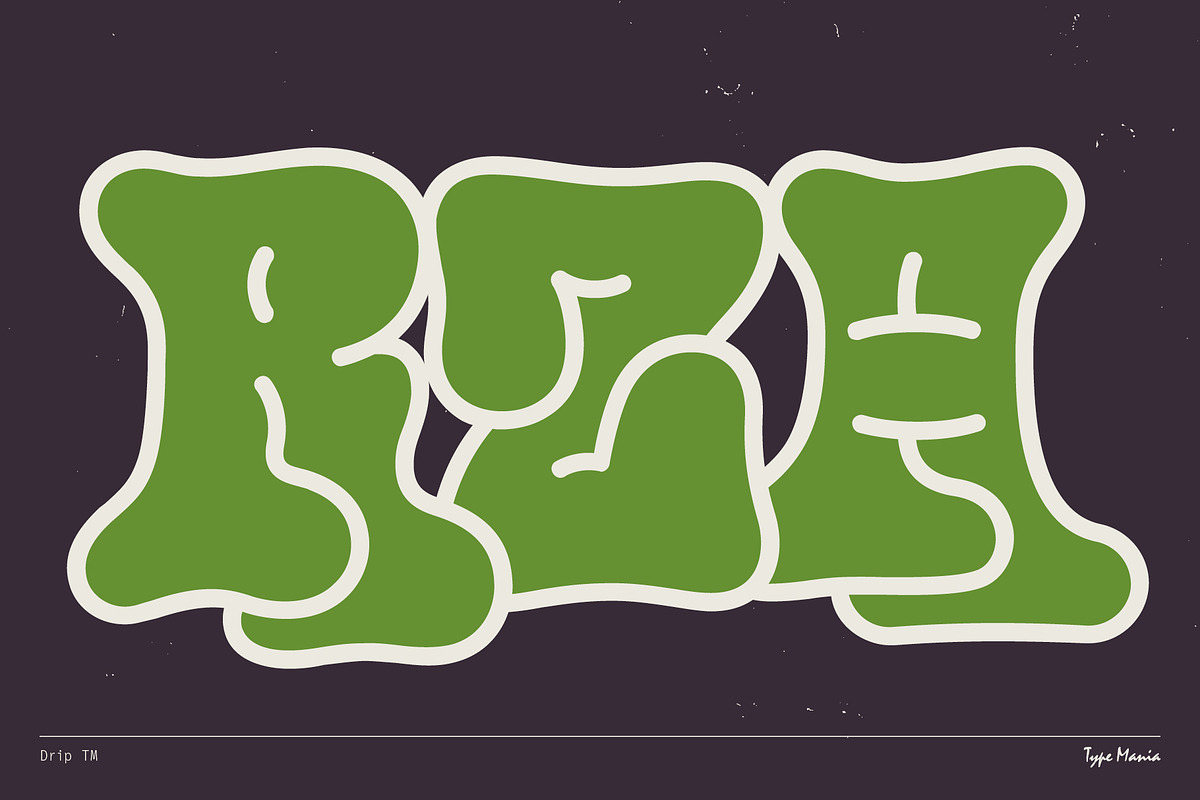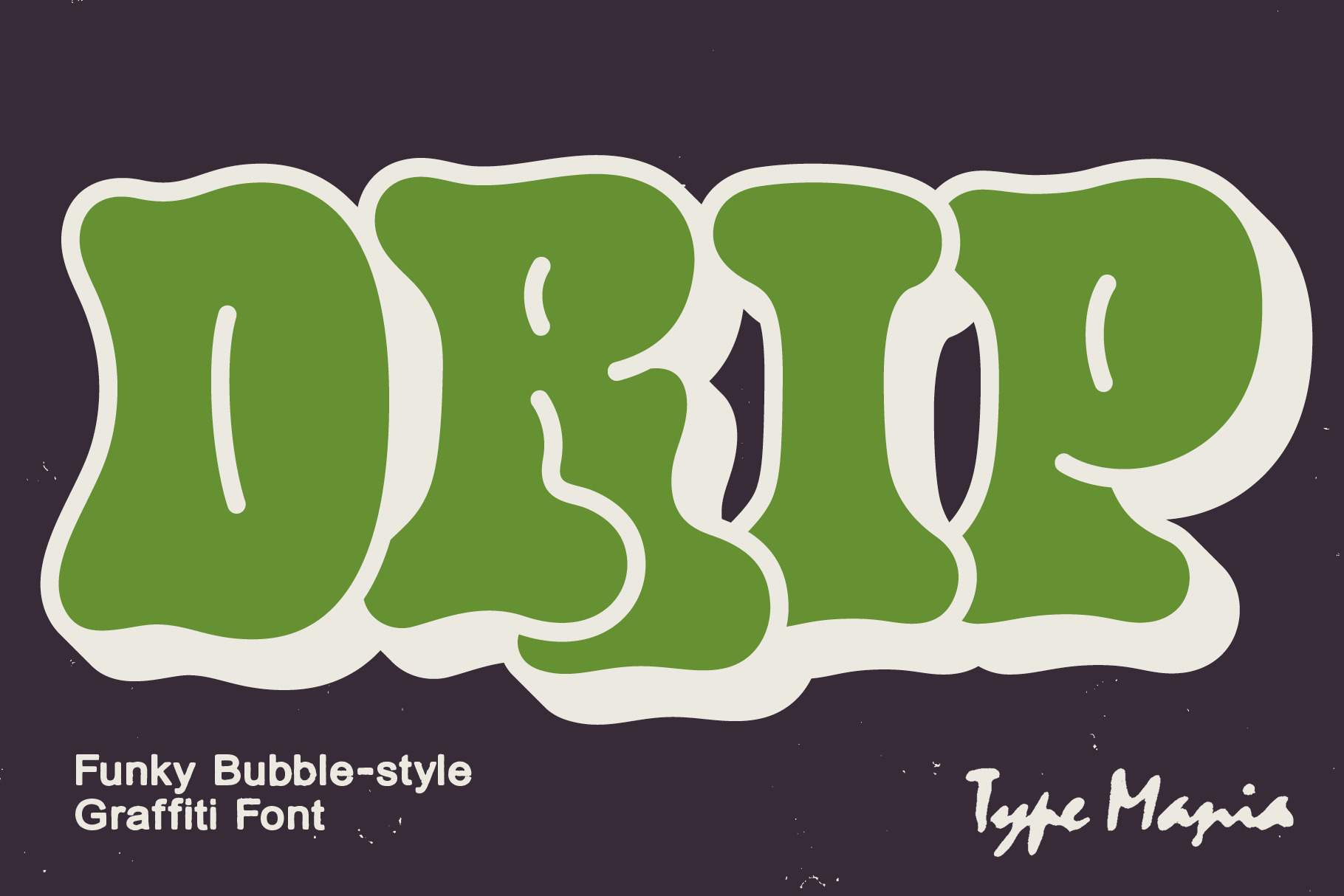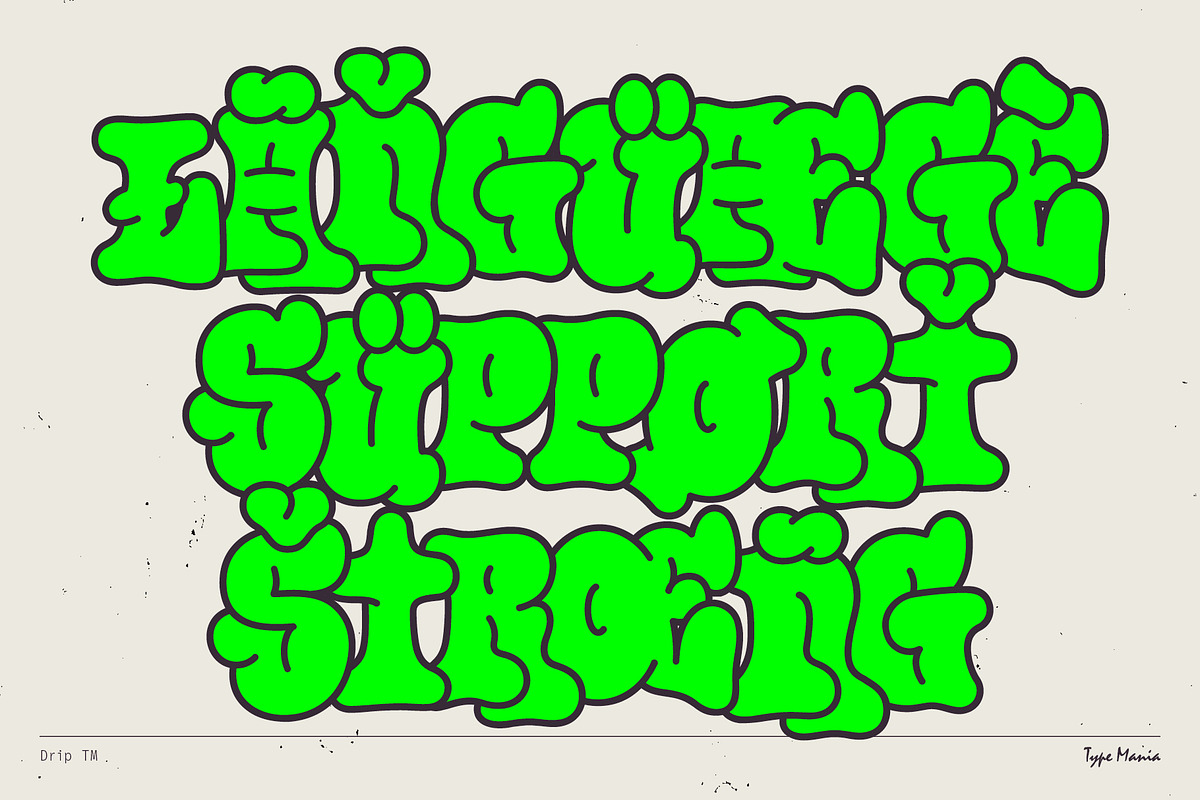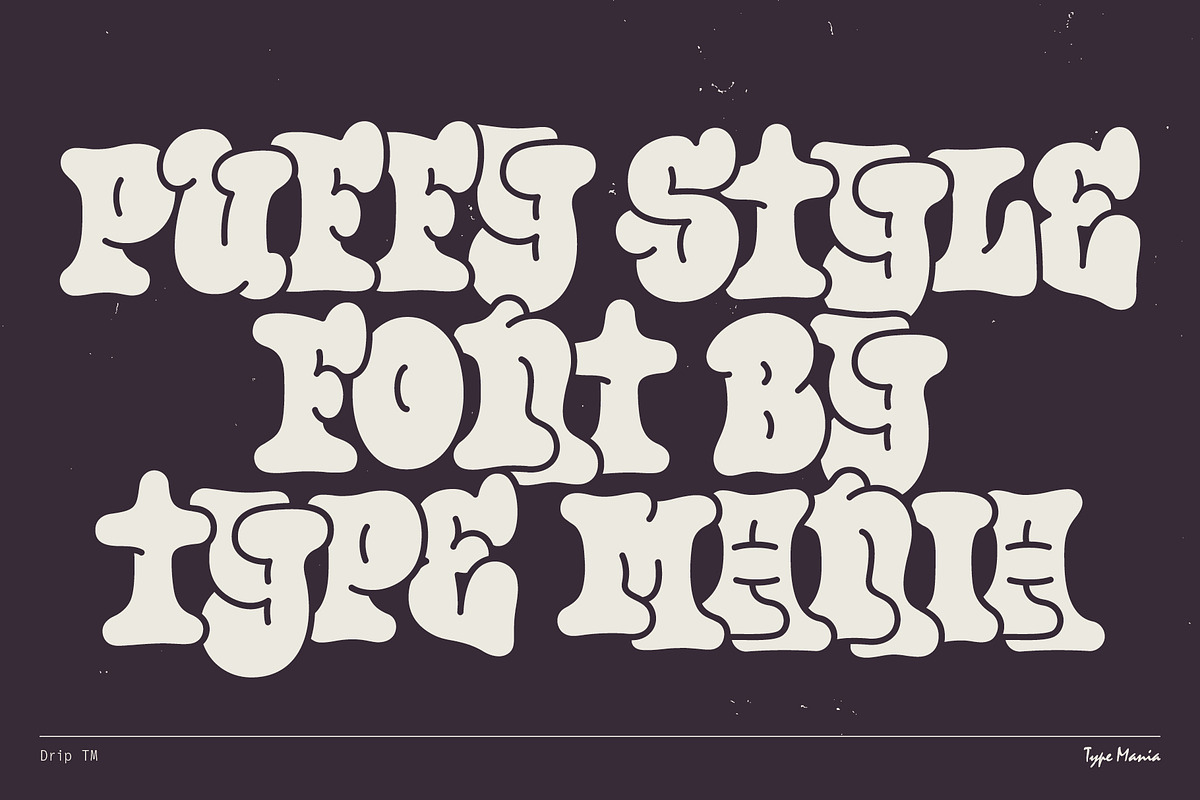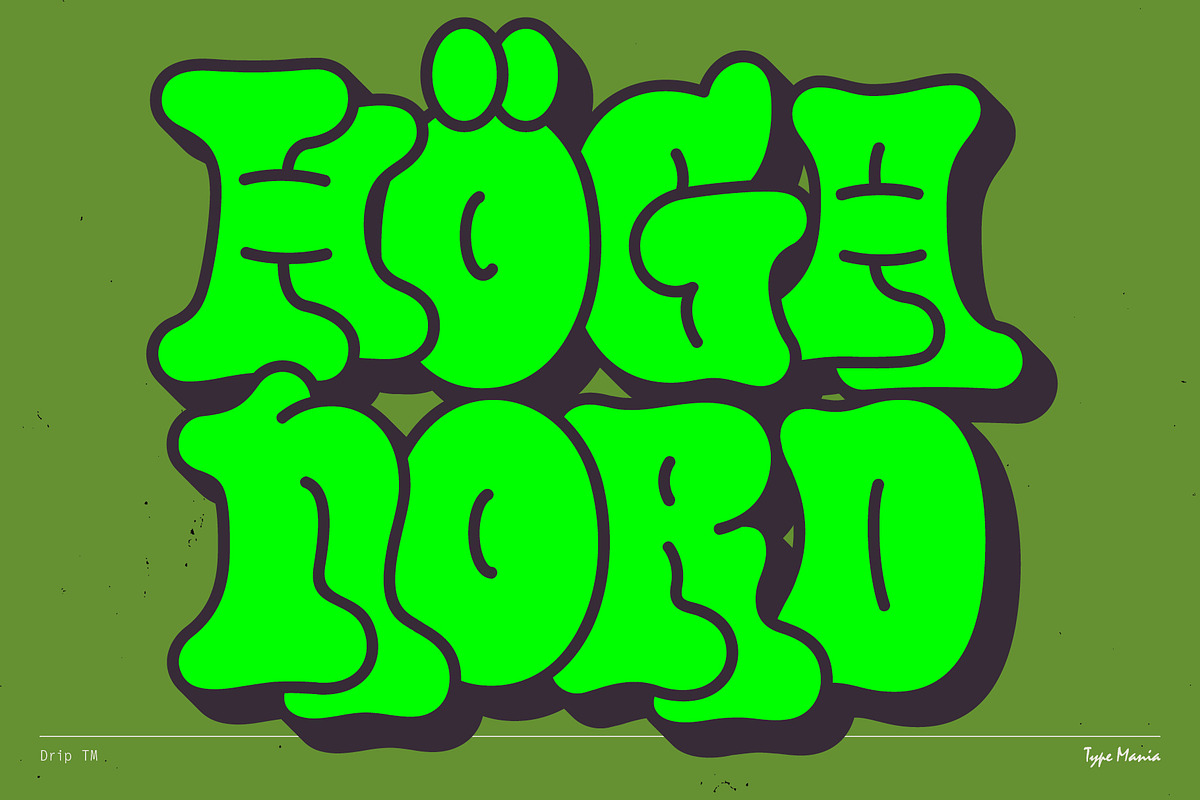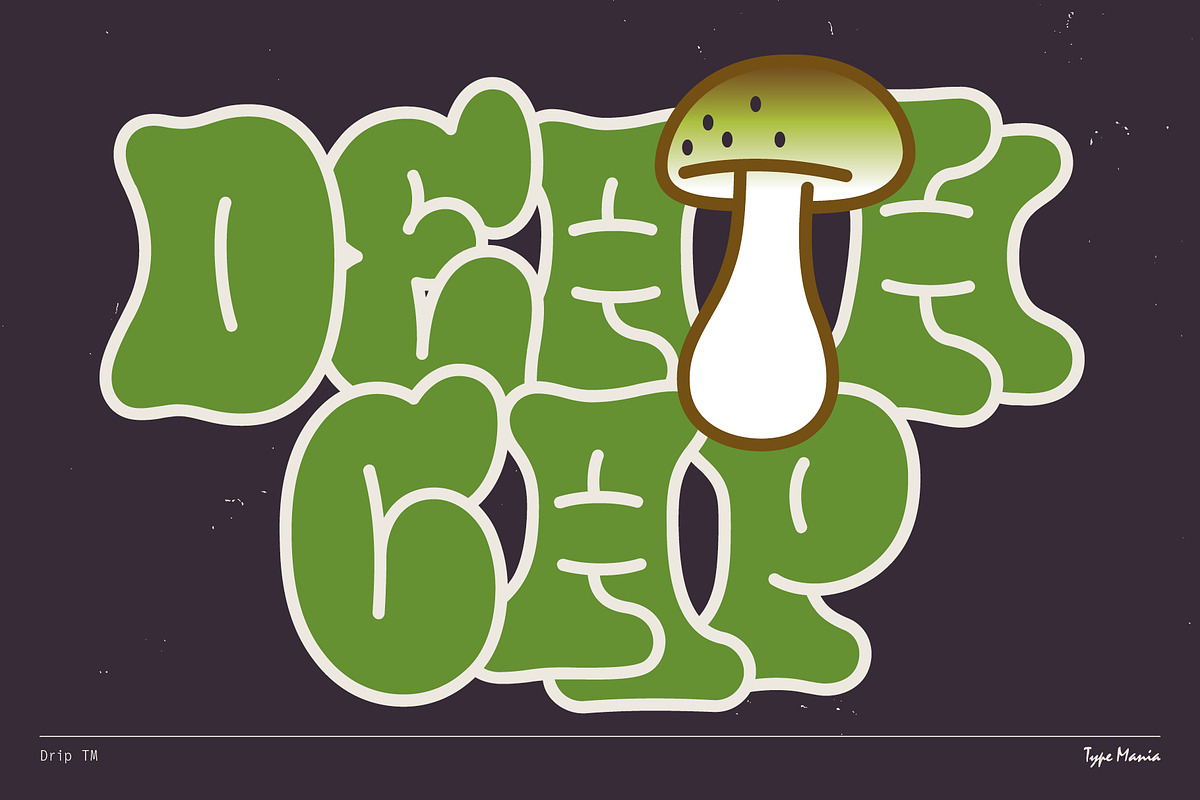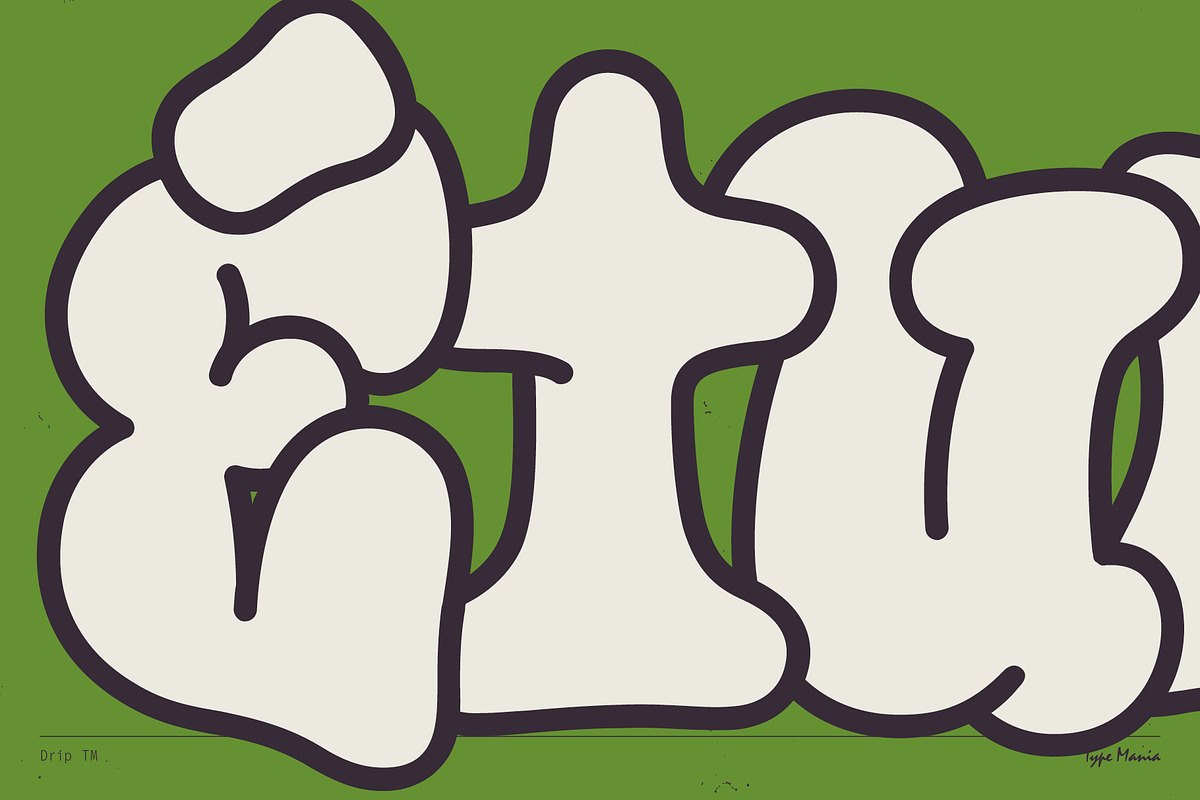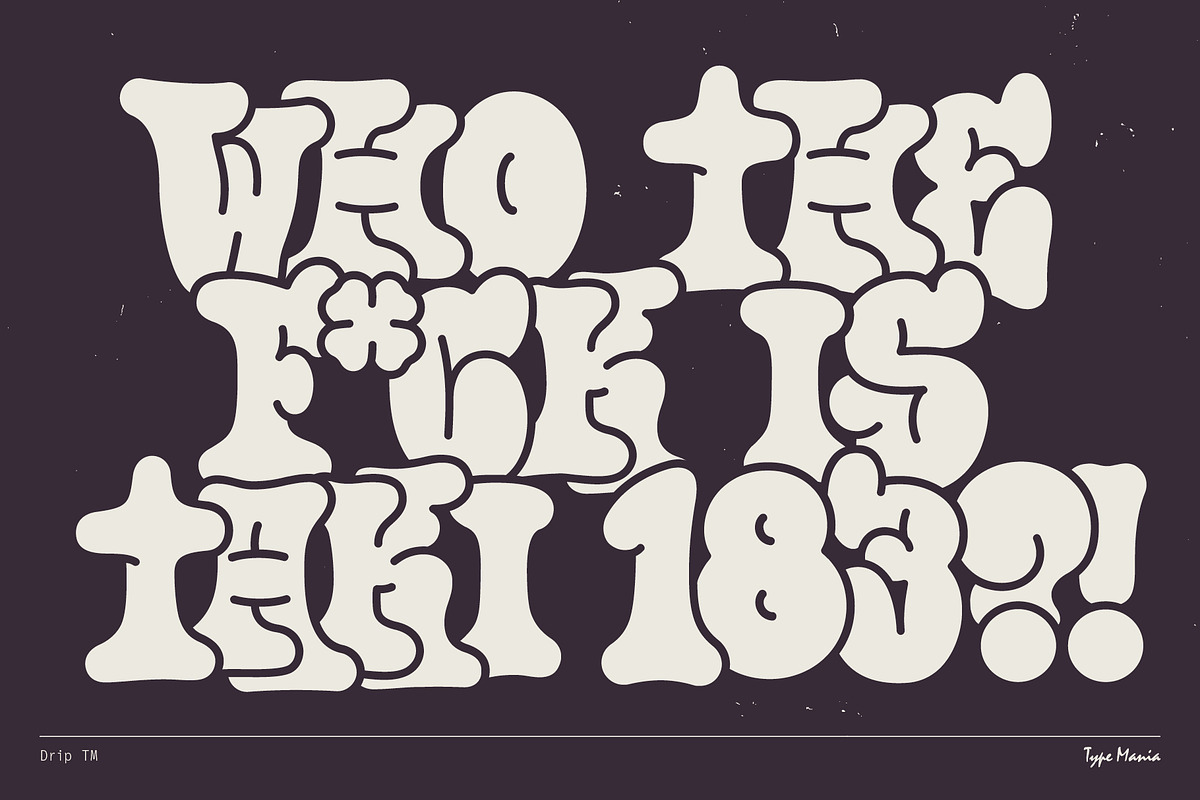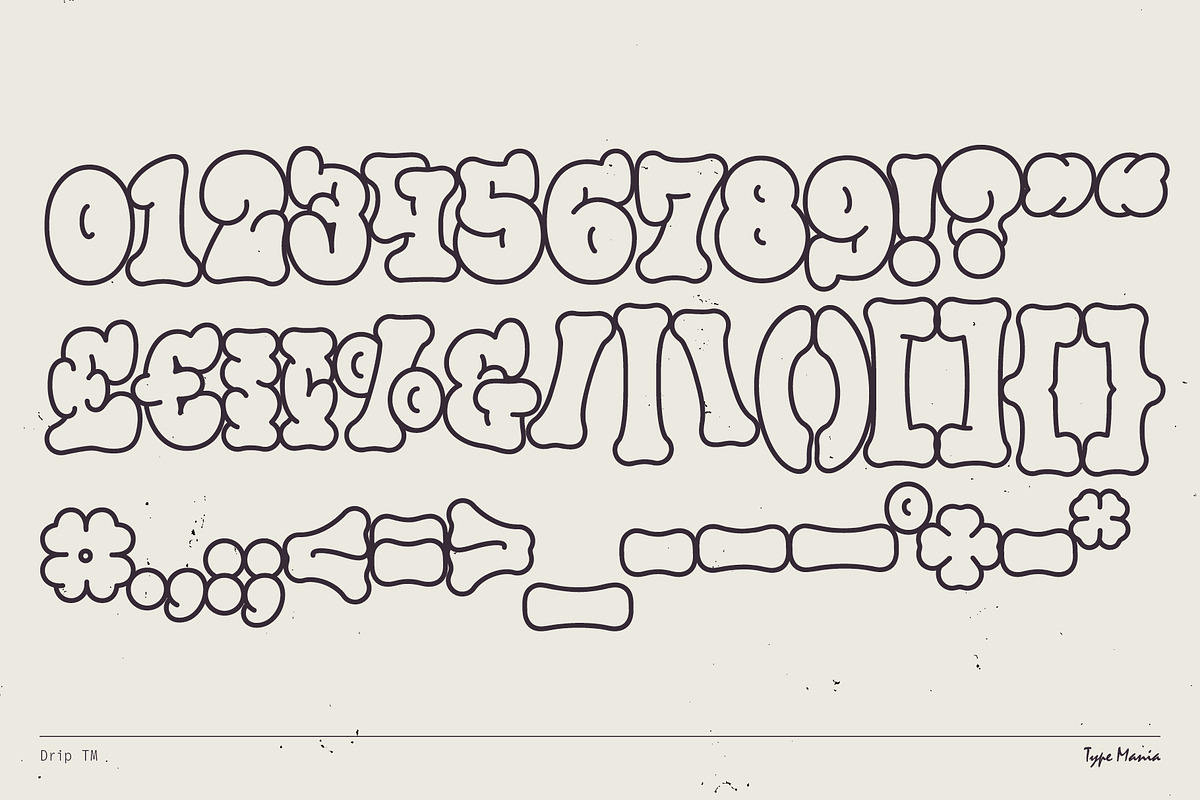
Drip TM – Bubble Graffiti Font
Meet Drip TM, a heavy graffiti font with bubbly styles. Suited for short n sweet statements, see if it works for your project ×͜×